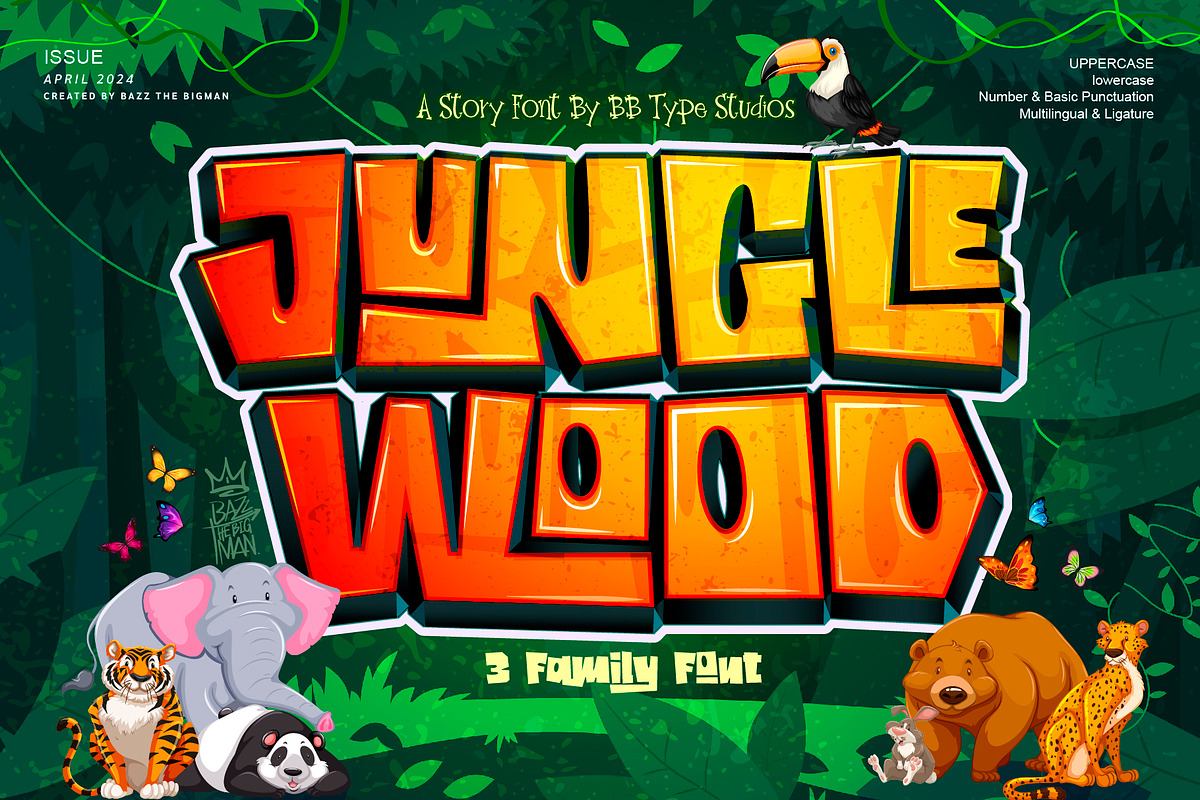
Please note, to use this font for commercial purposes, you must purchase the full version. Jungle Wood is a bold and rustic font that evokes the spirit of the wild, perfect for outdoor, nature-themed, or adventure-related designs. With its wood-inspired texture and organic feel, this font is ideal for logos, branding, posters, and creative projects. Whether you're designing for an eco-friendly brand, an outdoor event, or a nature-themed campaign, Jungle Wood adds a unique, earthy touch to your work. Test it out and enjoy free download access for personal use. Experience the natural charm of Jungle Wood Font Free Download before purchasing the commercial license. Add an earthy, organic vibe to your designs with Jungle Wood.